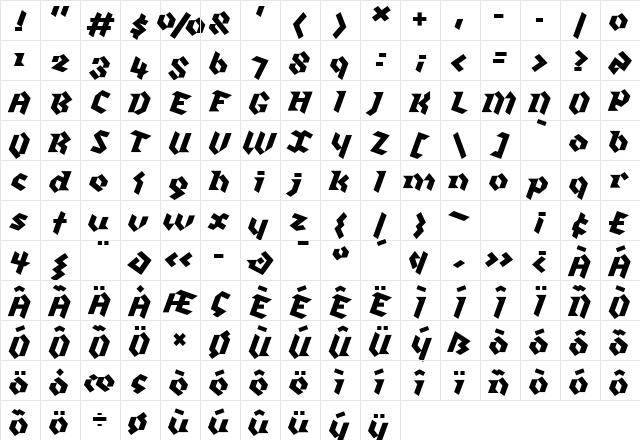
Complete Klute Regular glyph index. Displaying only characters natively supported by Klute Regular font.
Klute is a composed and adaptable typeface that performs quietly and consistently across a wide range of design contexts.